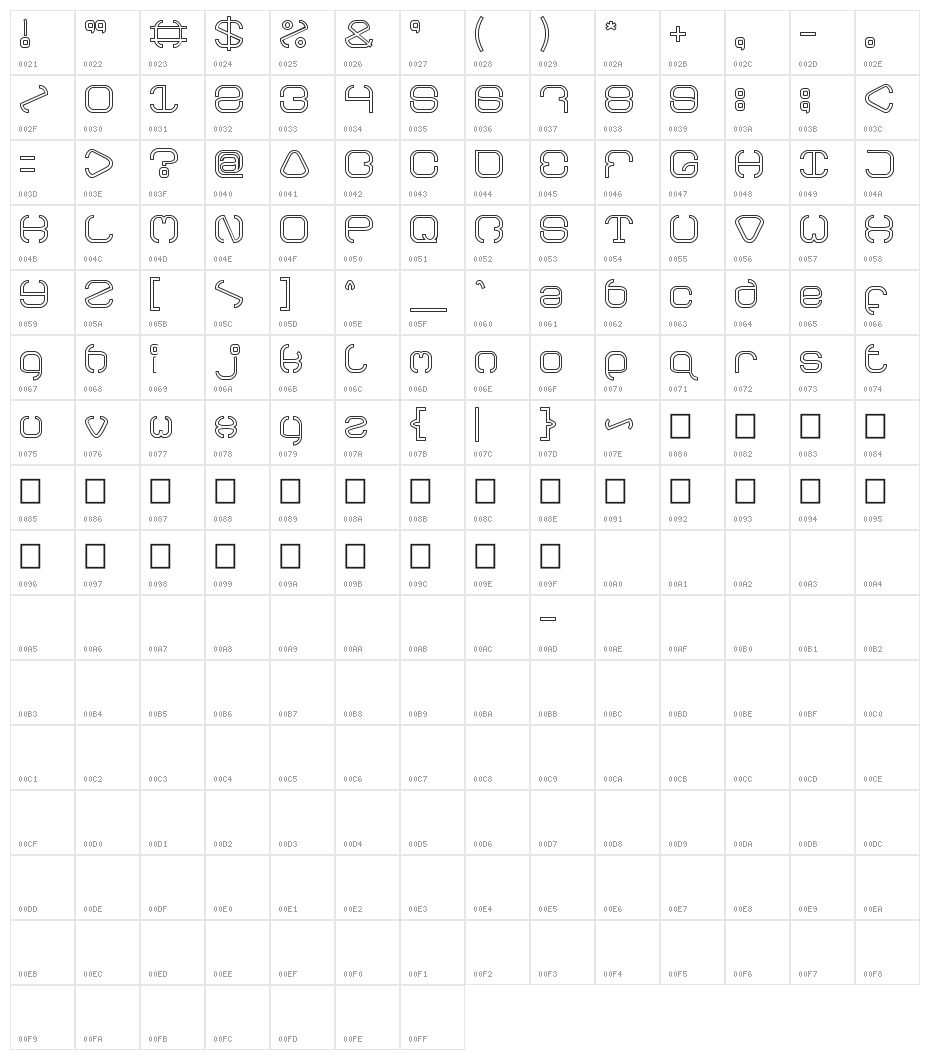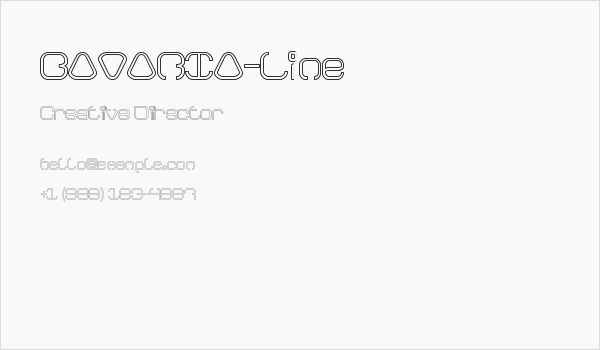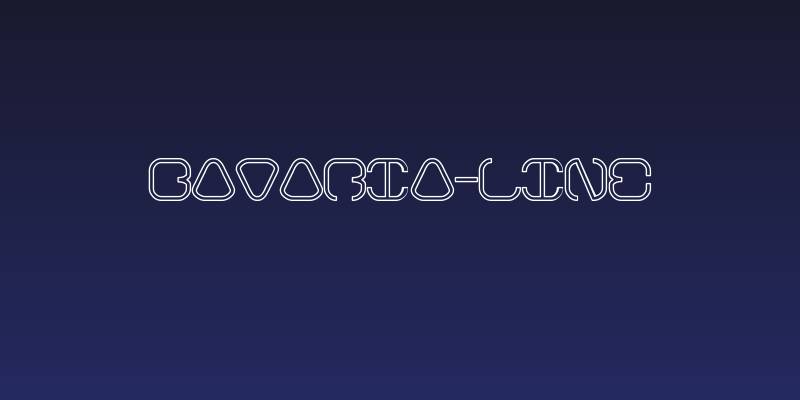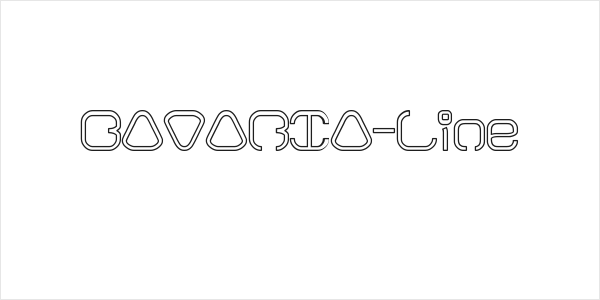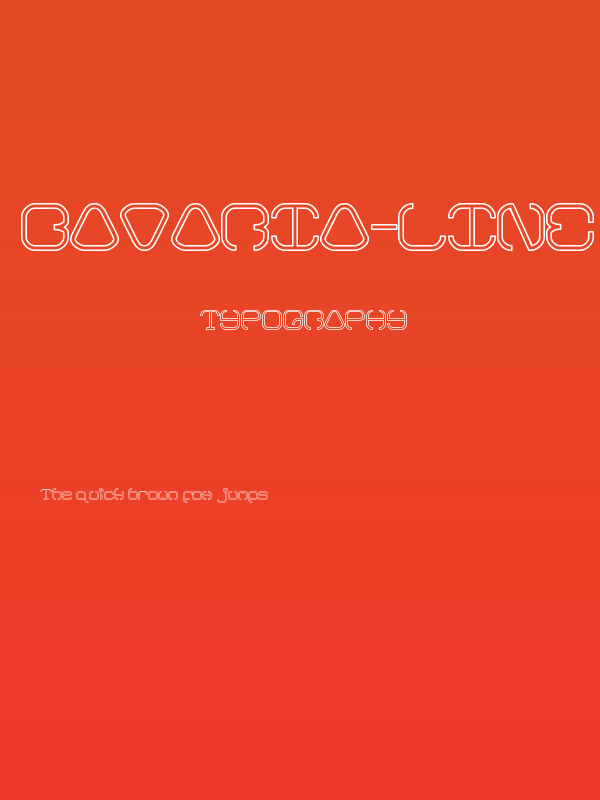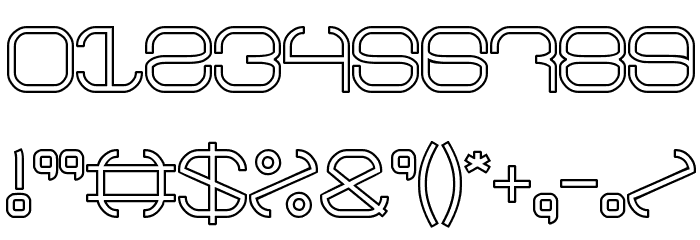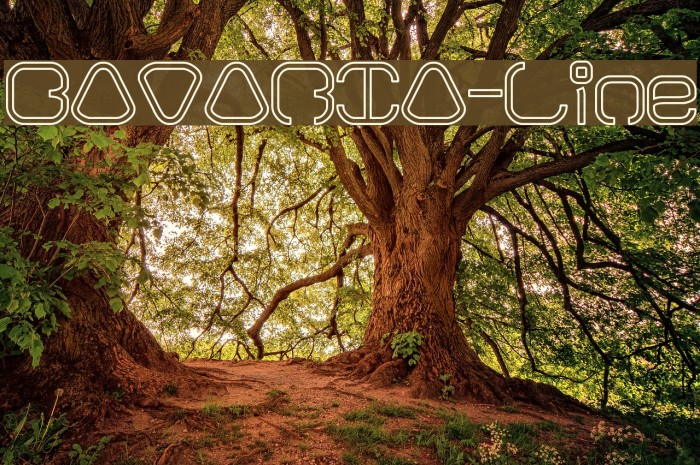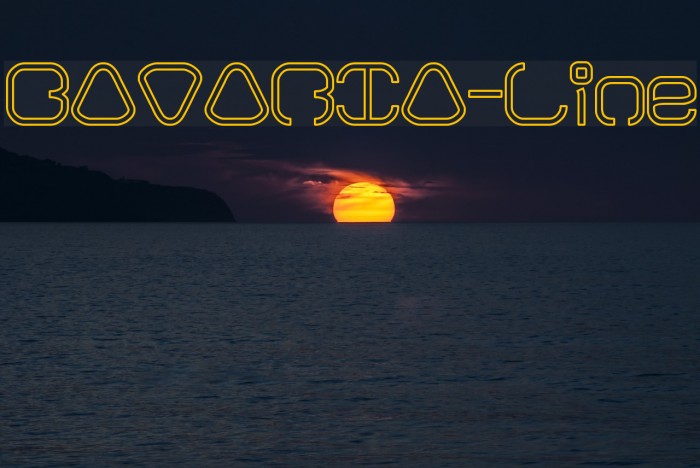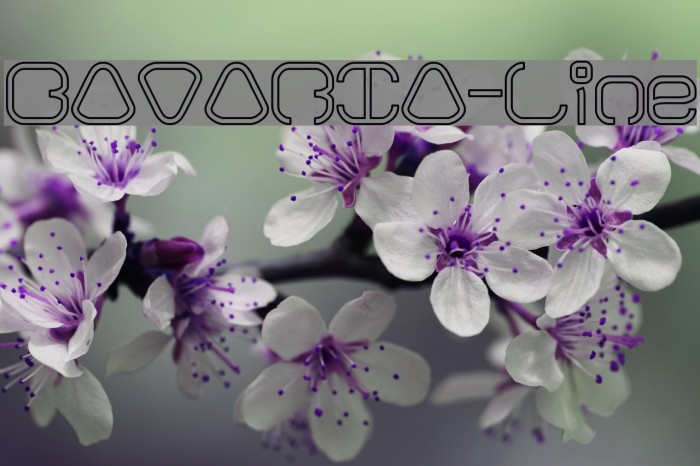
BAVARIA-Line Font
BAVARIA-Line Description
This font features a unique, futuristic design with a geometric and open structure. The characters are outlined, giving them a hollow appearance, which adds to the modern and sleek aesthetic. The lines are smooth and consistent, creating a harmonious flow throughout the alphabet. The uppercase and lowercase letters maintain a uniform style, with rounded edges and a consistent stroke width. Numbers and special characters follow the same design principles, ensuring a cohesive look. This font's distinct style makes it stand out, ideal for projects that require a modern and innovative touch.